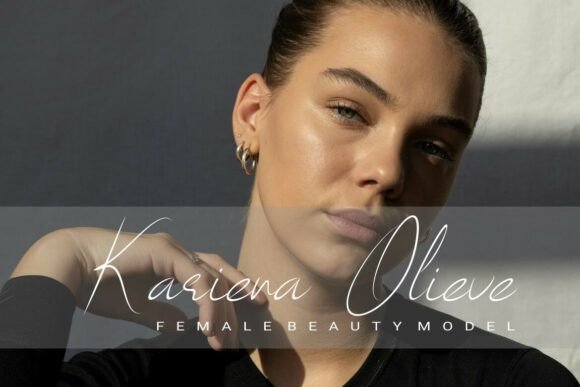
Grofa Unione Font: Elevate Your Design with Elegant Calligraphy
Are you looking for a font that exudes elegance and modernity? Look no further than Grofa Unione, a stunning minimalist calligraphy font that is perfect for a variety of design projects. With its soft, flowing strokes, Grofa Unione brings a touch of poetic sophistication to any design, making it ideal for wedding stationery, personal branding, lifestyle quotes, and more.
What is Grofa Unione Font?
Grofa Unione is a beautifully crafted script font that features soft, flowing strokes that give it a unique and elegant look. The font is designed to be highly versatile, making it suitable for a wide range of design projects, from wedding invitations and personal branding materials to lifestyle quotes and social media graphics.
One of the standout features of Grofa Unione is its minimalist approach to calligraphy. The font eschews ornate flourishes and instead focuses on clean lines and simple strokes, giving it a modern and sophisticated feel. This makes it perfect for designers who want to create elegant and understated designs that still pack a punch.
Key Features of Grofa Unione Font
- Soft, flowing strokes: Grofa Unione’s soft, flowing strokes give it a beautiful, elegant look that is perfect for designs that require a touch of sophistication.
- Minimalist approach: The font’s minimalist approach to calligraphy makes it highly versatile and suitable for a wide range of design projects.
- Elegant and modern: Grofa Unione’s clean lines and simple strokes give it a modern and sophisticated feel that is perfect for designers who want to create elegant and understated designs.
- Highly legible: Despite its elegant look, Grofa Unione is highly legible, making it perfect for use in body text as well as headings.
Use Cases for Grofa Unione Font
Grofa Unione is a highly versatile font that can be used in a wide range of design projects. Here are some of the most popular use cases for the font:
- Wedding stationery: Grofa Unione is perfect for wedding invitations, save-the-date cards, and other wedding stationery. Its elegant look and feel make it a great choice for couples who want to create beautiful and sophisticated wedding designs.
- Personal branding: Grofa Unione is also great for personal branding projects, such as business cards, letterheads, and social media graphics. Its modern and sophisticated feel make it perfect for entrepreneurs and small business owners who want to create a professional and elegant brand image.
- Lifestyle quotes: Grofa Unione’s elegant look and feel make it perfect for lifestyle quotes and social media graphics. Its soft, flowing strokes give it a beautiful and inspiring look that is sure to grab the attention of your audience.
Tips for Using Grofa Unione Font
Here are some tips for using Grofa Unione in your design projects:
- Use it sparingly: Grofa Unione is a beautiful font, but it can be overwhelming if used too much. Use it sparingly to add a touch of elegance and sophistication to your designs.
- Pair it with a sans-serif font: Grofa Unione pairs perfectly with sans-serif fonts, such as Arial or Helvetica. This creates a beautiful contrast between the elegant script font and the clean, modern sans-serif font.
- Experiment with different colors: Grofa Unione looks great in a variety of colors, from soft pastels to bold and bright hues. Experiment with different colors to find the one that works best for your design.
Grofa Unione is a stunning minimalist calligraphy font that is perfect for designers who want to create elegant and sophisticated designs. Its soft, flowing strokes and modern feel make it highly versatile and suitable for a wide range of design projects, from wedding stationery and personal branding to lifestyle quotes and social media graphics.
With its highly legible design and beautiful look and feel, Grofa Unione is a great choice for designers who want to add a touch of poetic sophistication to their designs. Whether you’re a seasoned designer or just starting out, Grofa Unione is definitely worth checking out.